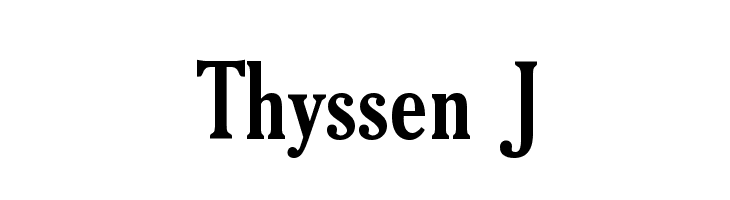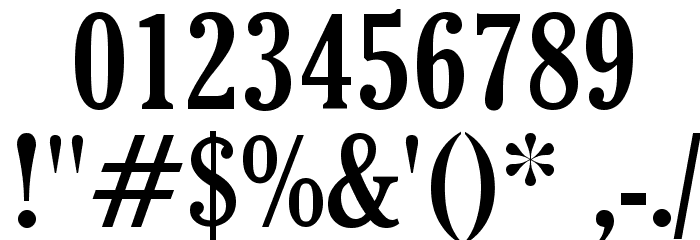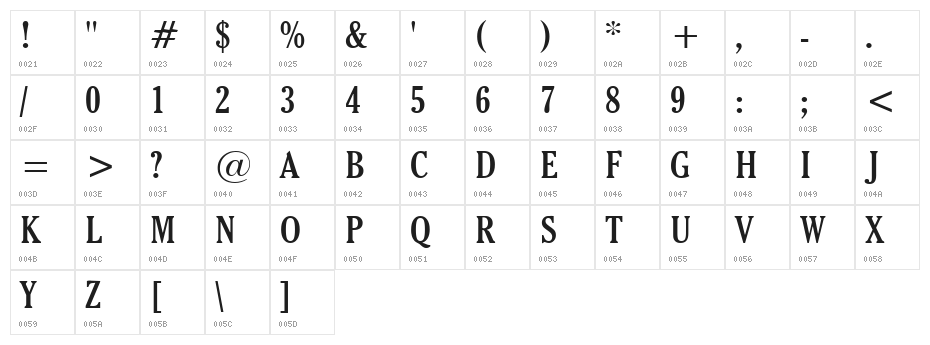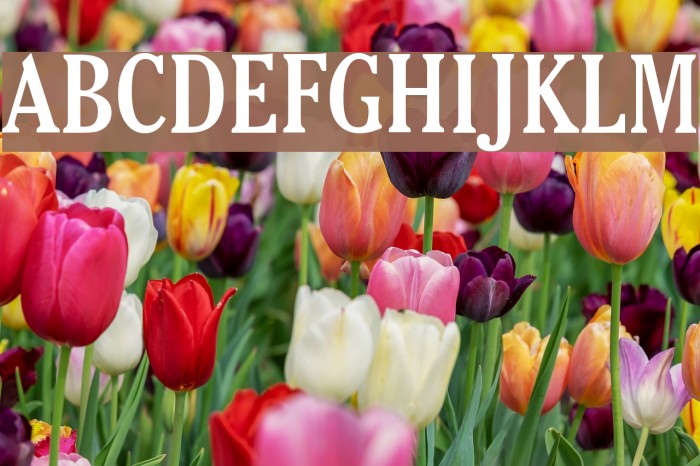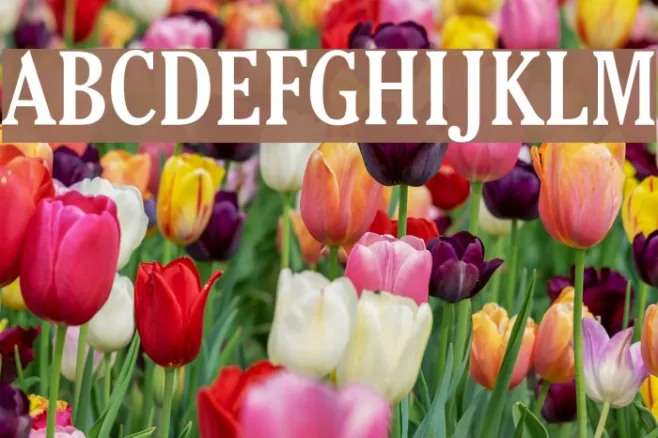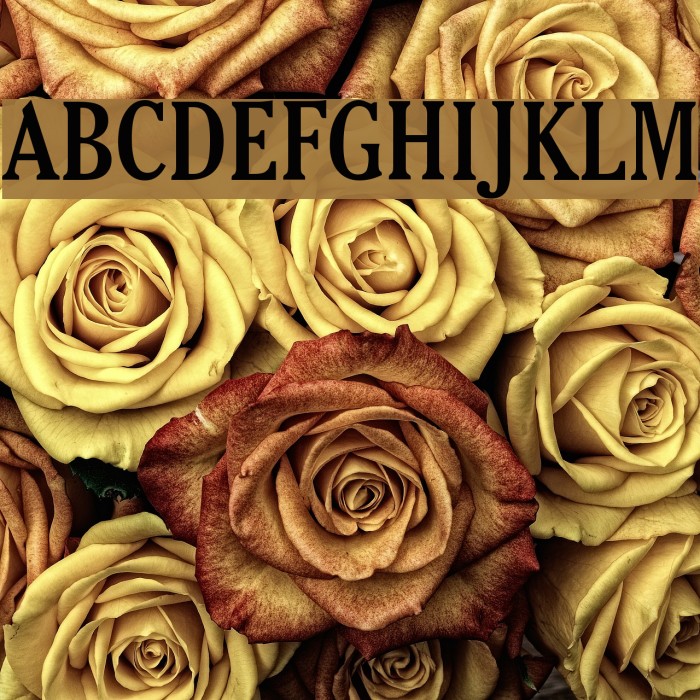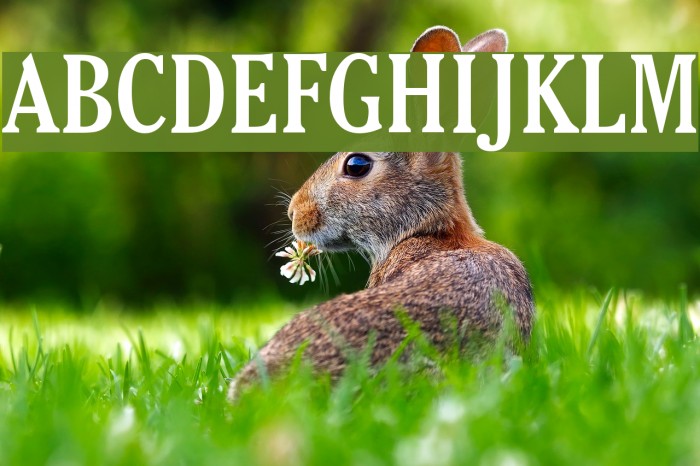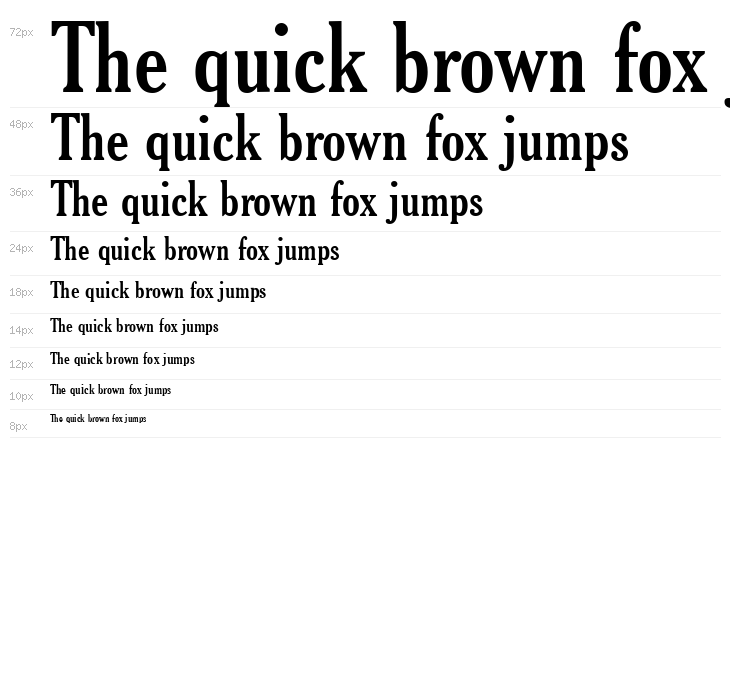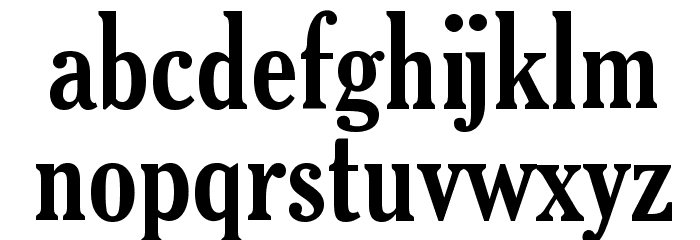
Thyssen J Font
Thyssen J Description
This font features a classic serif style with strong, bold strokes and high contrast between thick and thin lines. The serifs are pronounced and slightly curved, giving it a traditional and authoritative appearance. The uppercase letters are tall and commanding, while the lowercase letters maintain a consistent and harmonious flow. The numerals are clear and distinct, ensuring readability. Special characters are well-integrated, maintaining the overall aesthetic of the font. This font is versatile, suitable for both print and digital media, and can be used to convey a sense of professionalism and reliability.
| Proposed Projects | Ideal for editorial design, book covers, formal invitations, corporate branding, and any project requiring a classic and professional look. |